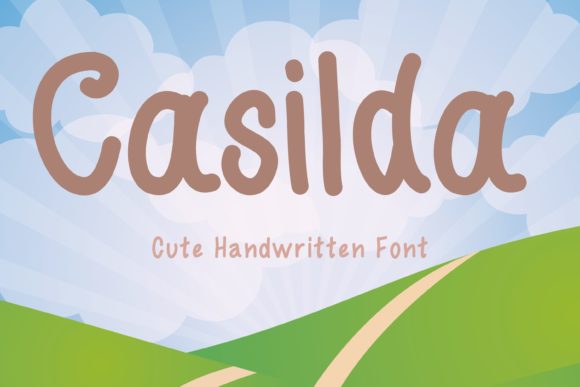
Introducing Casilda Font.
Are you searching for a font that can express your individuality, creativity, and passion for artistic expression? Look no further than Casilda Font, a remarkable creation by the talented Jennythip.
Casilda Font is a whimsical and enchanting handwritten script font that will add a touch of magic to your designs. With its playful and charming style, Casilda Font is the perfect choice for adding a personal touch to your projects. Whether you're creating invitations, greeting cards, social media posts, or any other design project, Casilda Font will help you create something truly special.
This exquisite font is like a breath of fresh air, its delicate strokes and graceful curves will capture the hearts of all who lay their eyes upon it. Casilda Font is a master of versatility, it can effortlessly adapt to a wide range of design styles, from elegant and sophisticated to playful and whimsical. Whether you're designing a wedding invitation or a children's book, Casilda Font will add a touch of magic to your work.